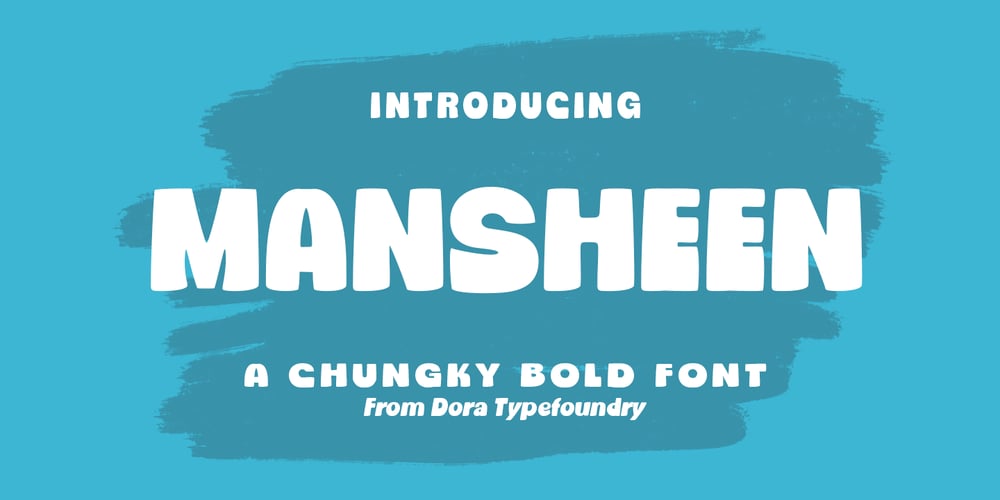
Mansheen Font Family was designed by Zahratul Laila and published by Dora Typefoundry. Mansheen contains 2 styles and family package options. Mansheen is a simple and sweet display font. Authentic beautiful & delightful touches make it the perfect partner to present funny and childish feelings in any design. It’s perfect for children’s books, funny greeting cards, meal package designs, logos and many others, where simple abstract cartoons or graphics are used. But clearly, its use can be more extensive. I did a few design examples, so you can see how it works.WHAT YOU GET- Uppercase and lowercase letters are full- Numbers, Punctuation, Multilingual Accents- Alternates glyphsI highly recommend using a program that supports OpenType features and Glyphs panels such as Adobe Illustrator, Adobe Photoshop CC, Adobe InDesign, or CorelDraw, so you can see and access all Glyph variations.We really hope you enjoy and are interested in our offer. If you want to upgrade or need a license or ask questions, you can send me a message and you can immediately start your service doratypefoundry@gmail.com.Thank You